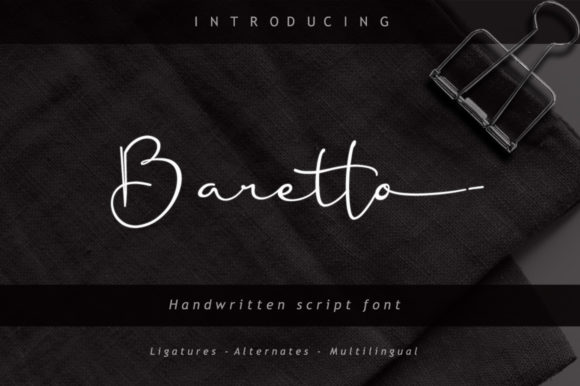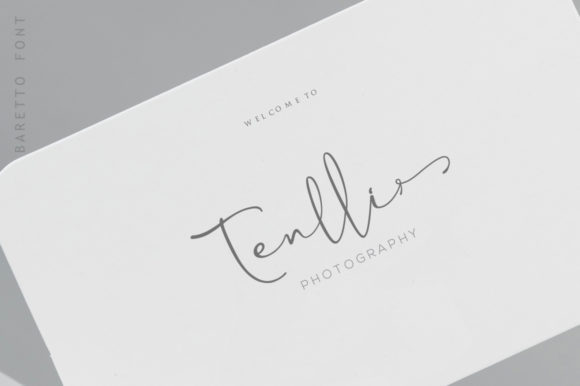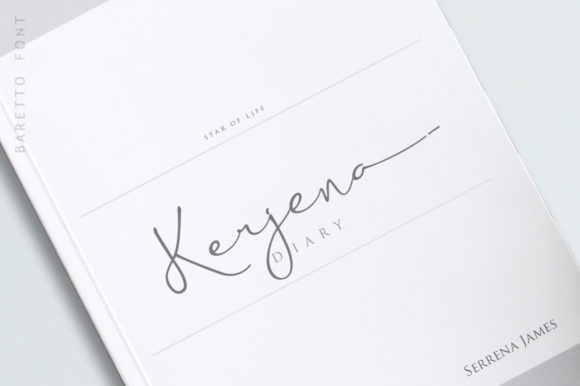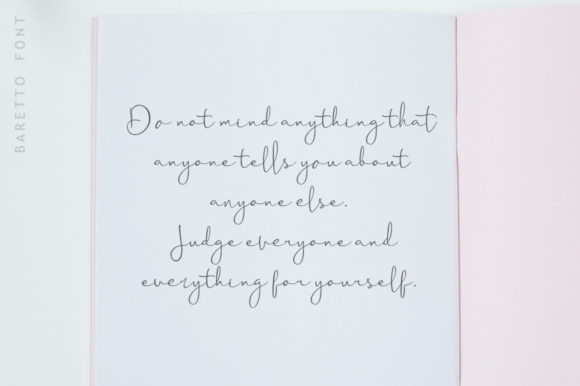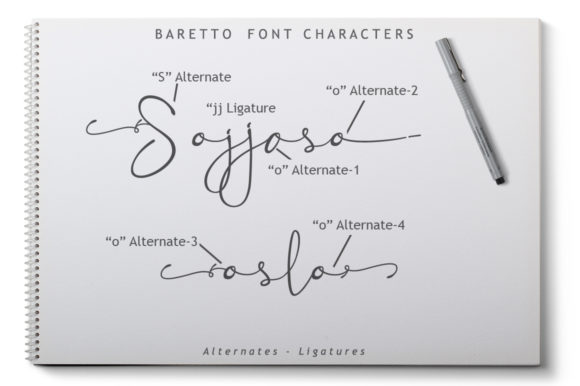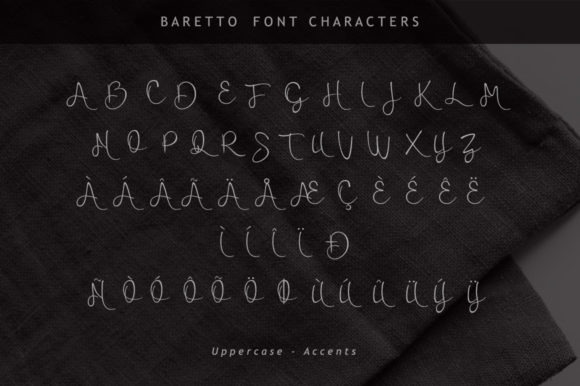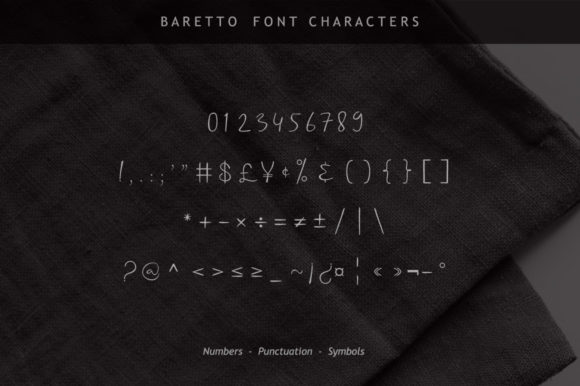
Baretto Font
About Baretto Font
The Baretto is a beautiful smooth handwritten script. It has an amazing handwritten feel and is absolutely suited for any display or text use.
It’s perfect for branding, quotes, logos, wedding invites, product packaging, headers, cards and much more!.